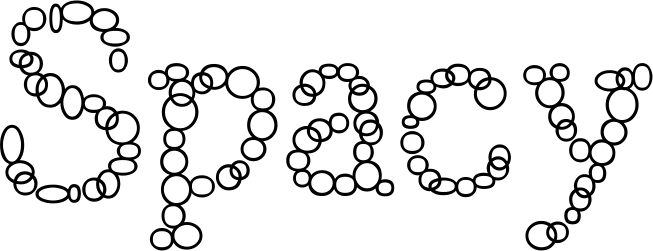
Spacy Font
Today we have another bubble font for you. This font is a spacy font, perfect for kid science projects or texts. Each character in this Spacy font is adorned with bubbles and gives a fictitious sense to the reader. It is perfect for conveying a friendly and approachable tone and you can use it for any informal text.